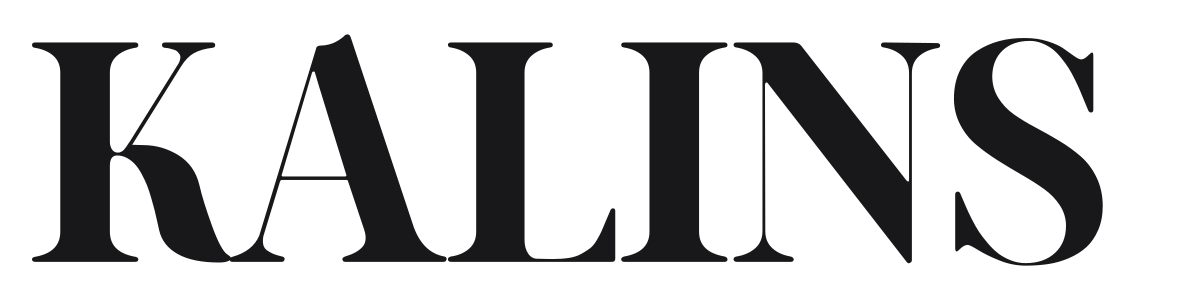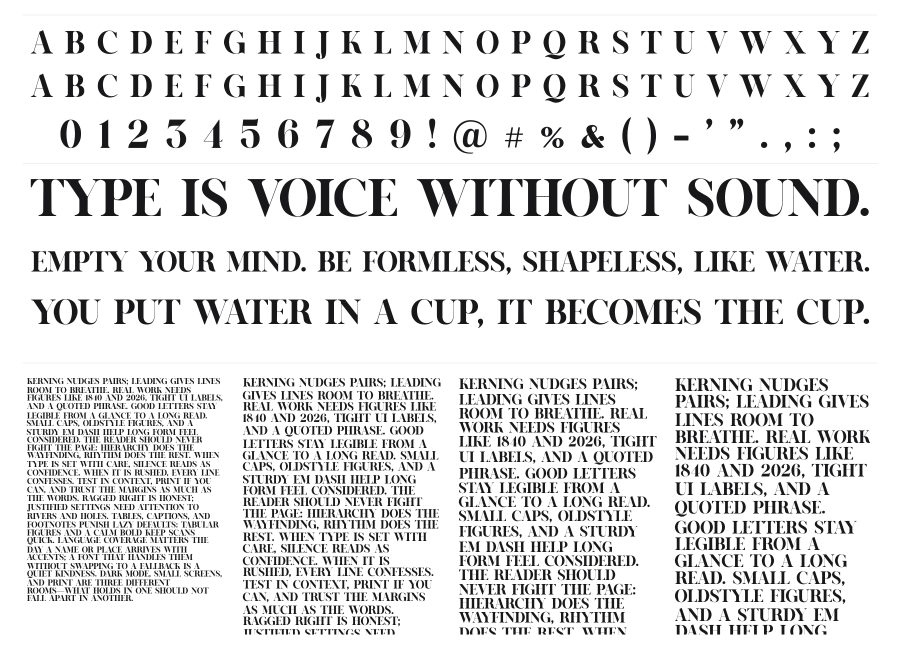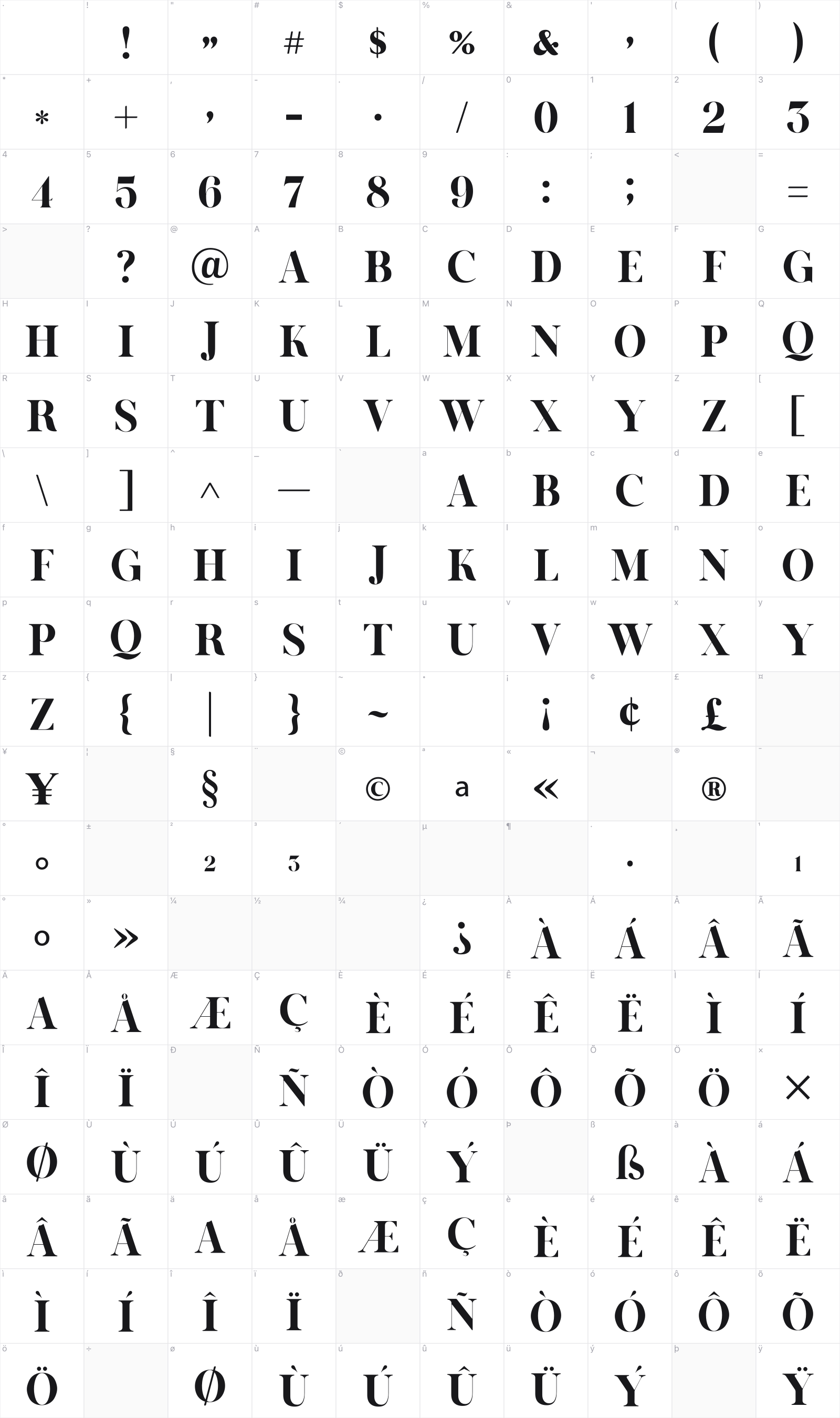
Kalins
Kalins is a bold didone serif with extreme stroke contrast and wide, commanding proportions. The razor-thin horizontals set against massive vertical strokes give it the kind of tension that looks at home on magazine covers and luxury packaging. It leans firmly into high-fashion editorial territory.